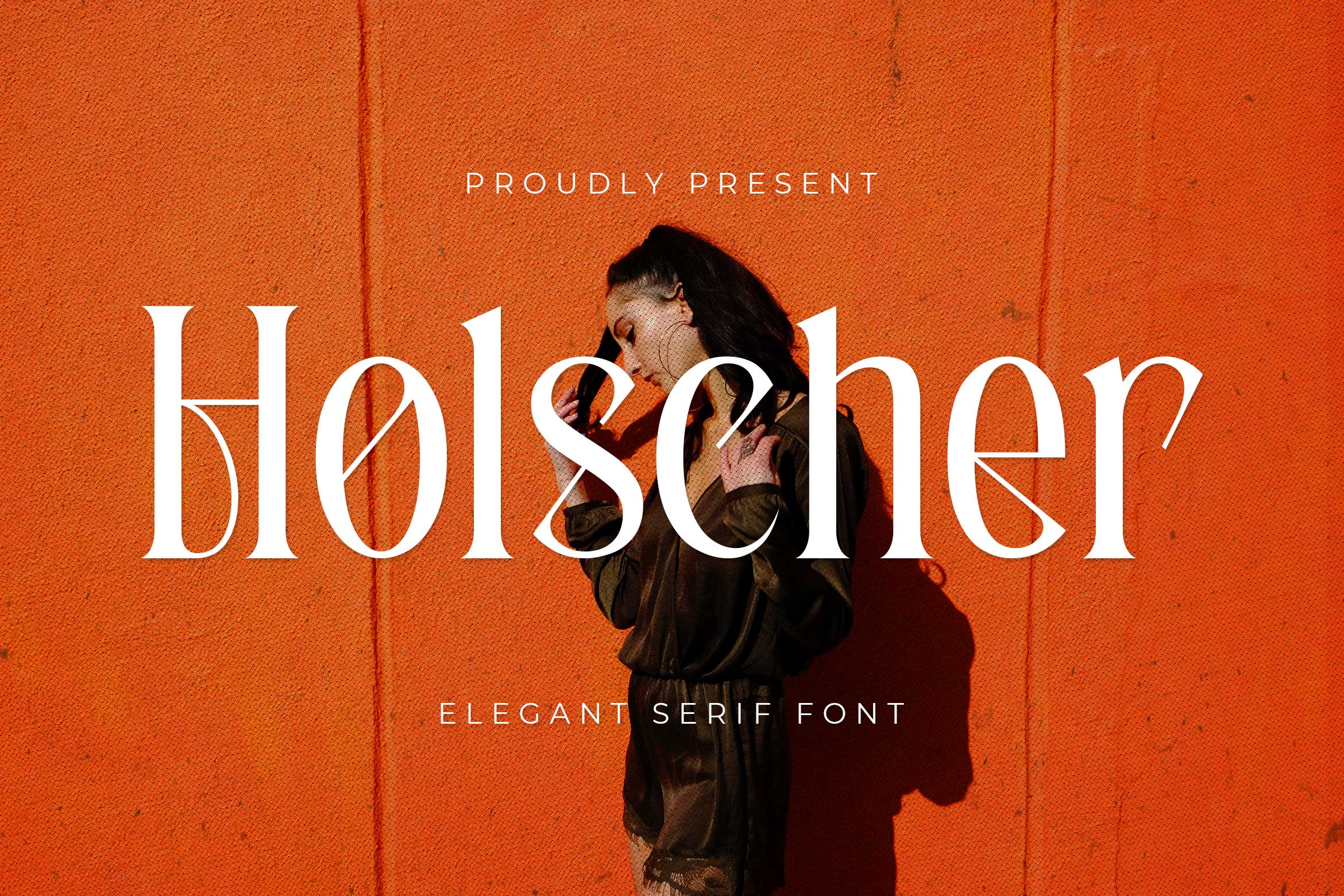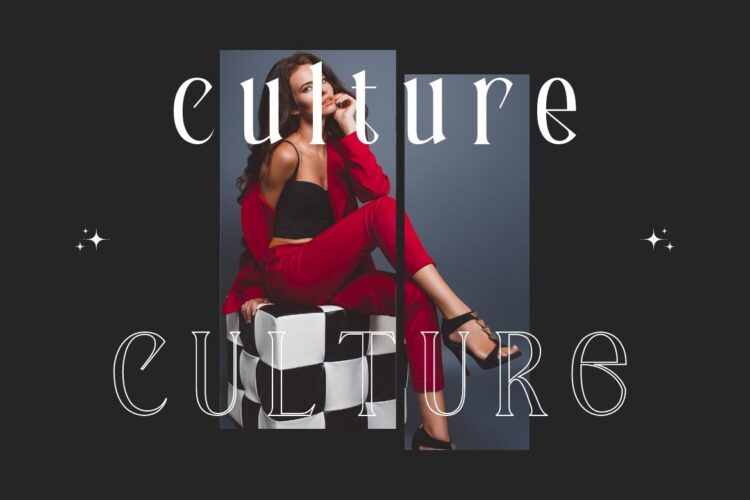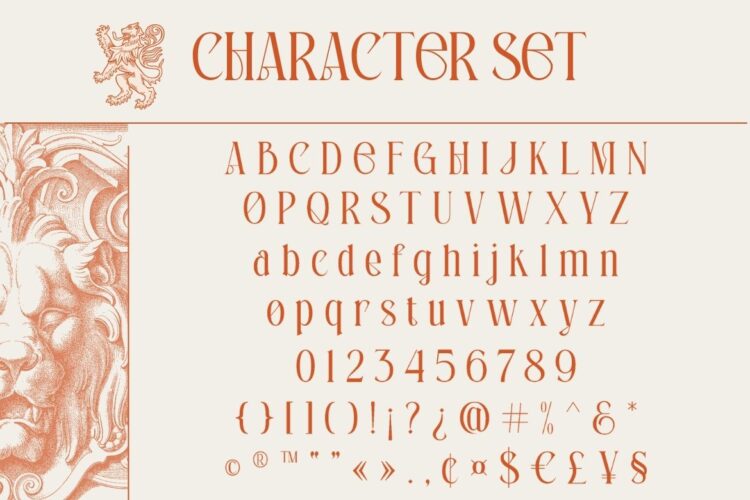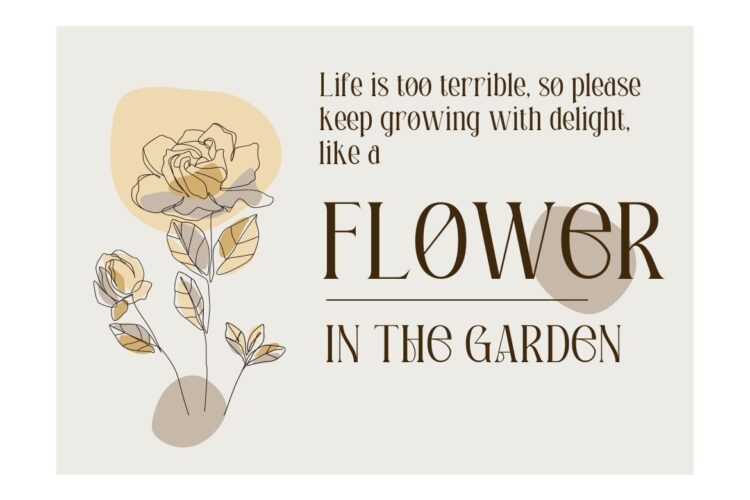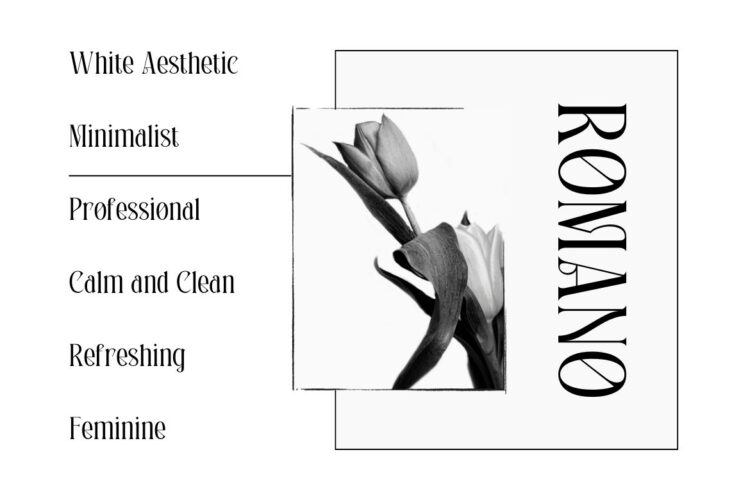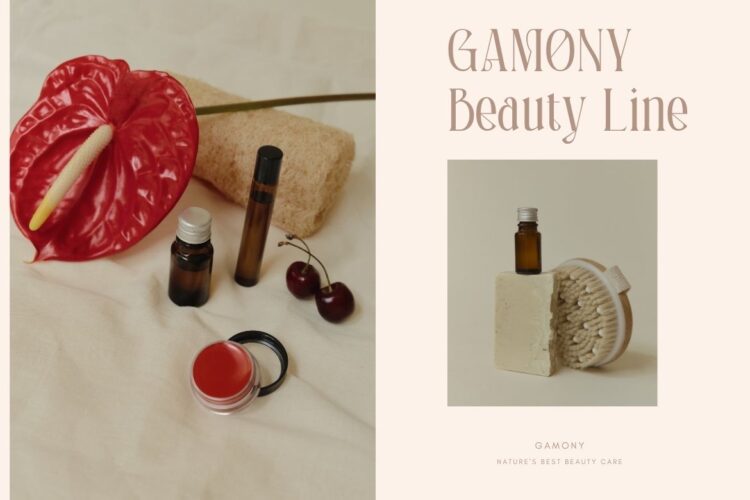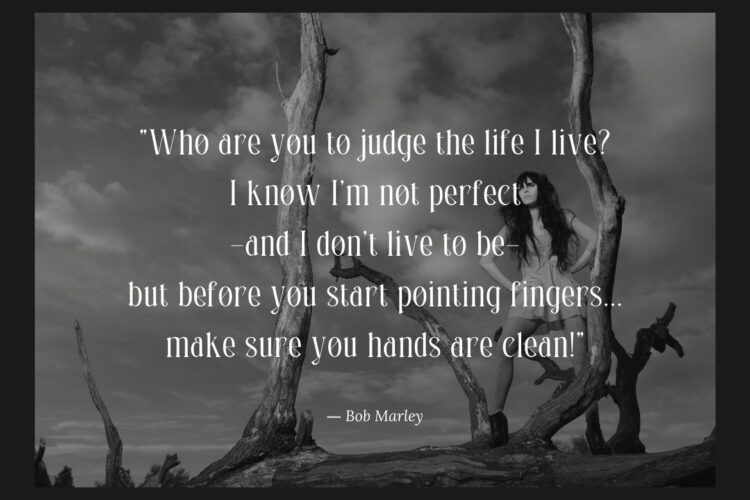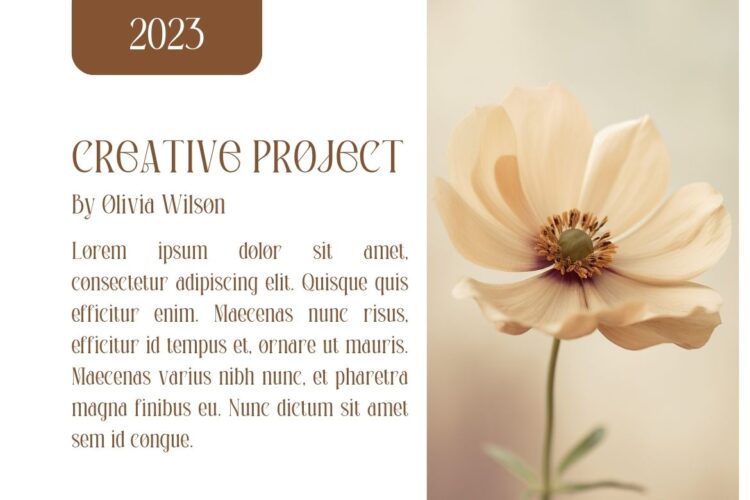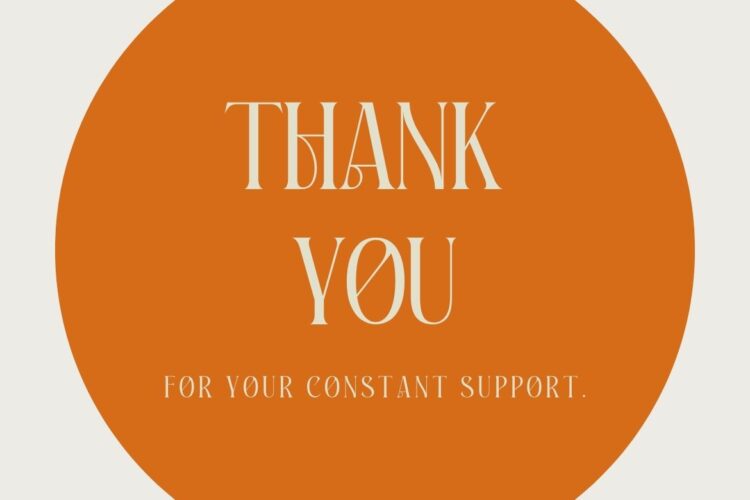
Introducing Holscher – Modern Serif Font. Holscher is a modern and simple font, best used as a display for headings, logos, branding, magazines, product packaging and invitations.
Holscher – Modern Serif Font